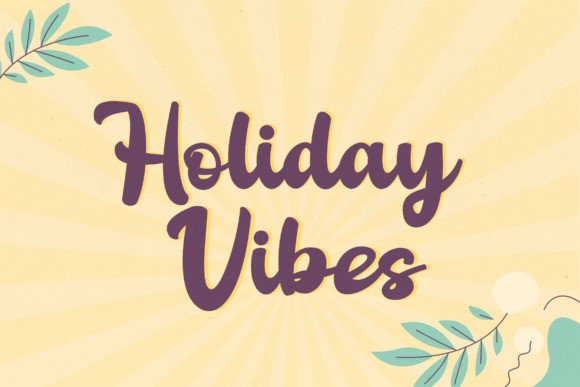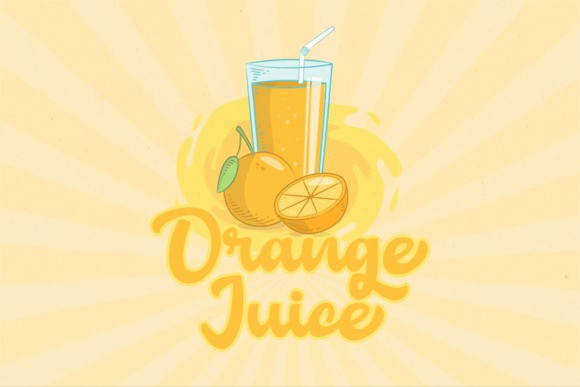
Anderlin Daily Font
Anderlin Daily is a cute and lovely Script font that you can use for all chalkboard quotes or teaching material! Its authentic look will add a personal and realistic feel to your designs. This font is PUA encoded, which means you can access all of the glyphs and swashes with ease!